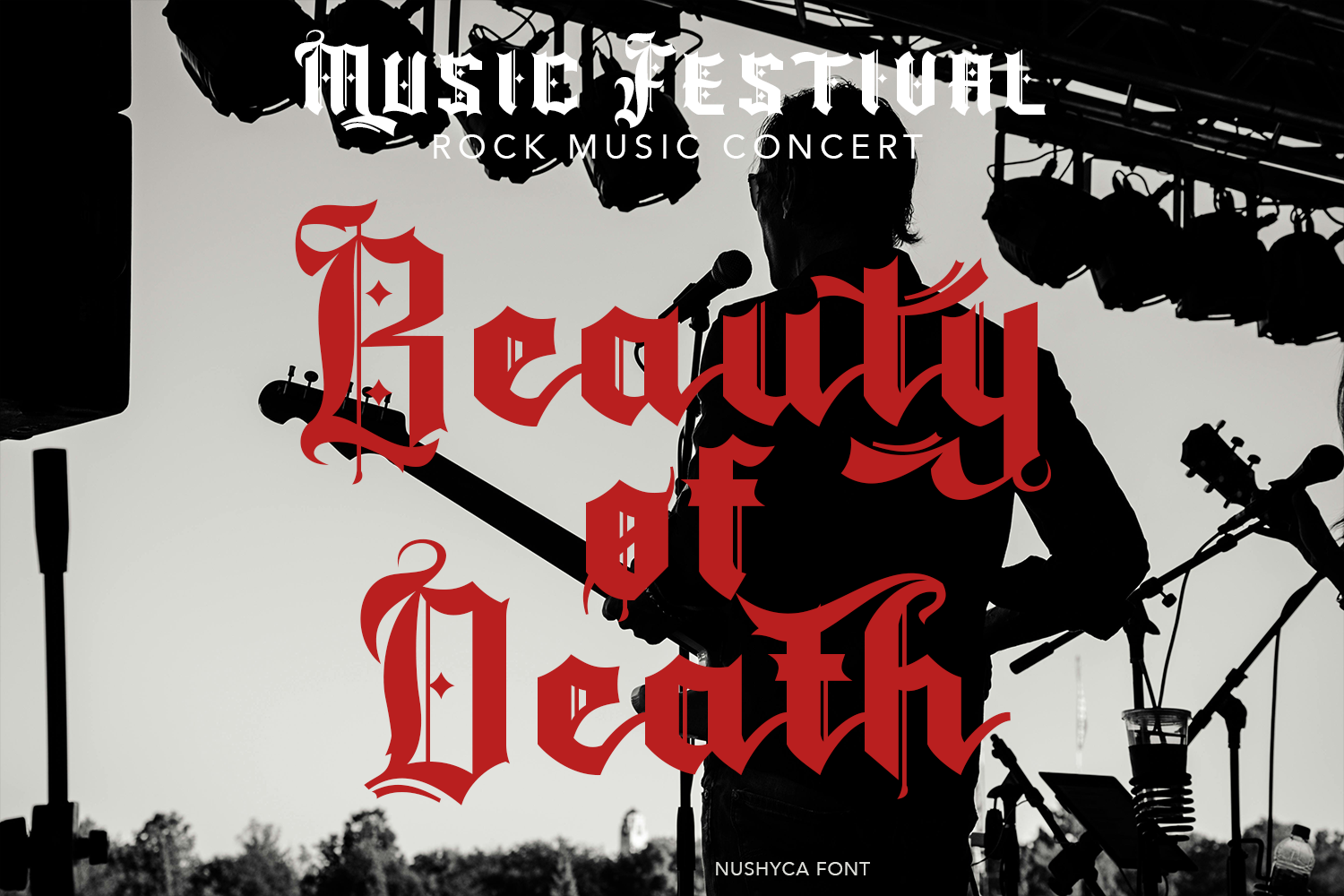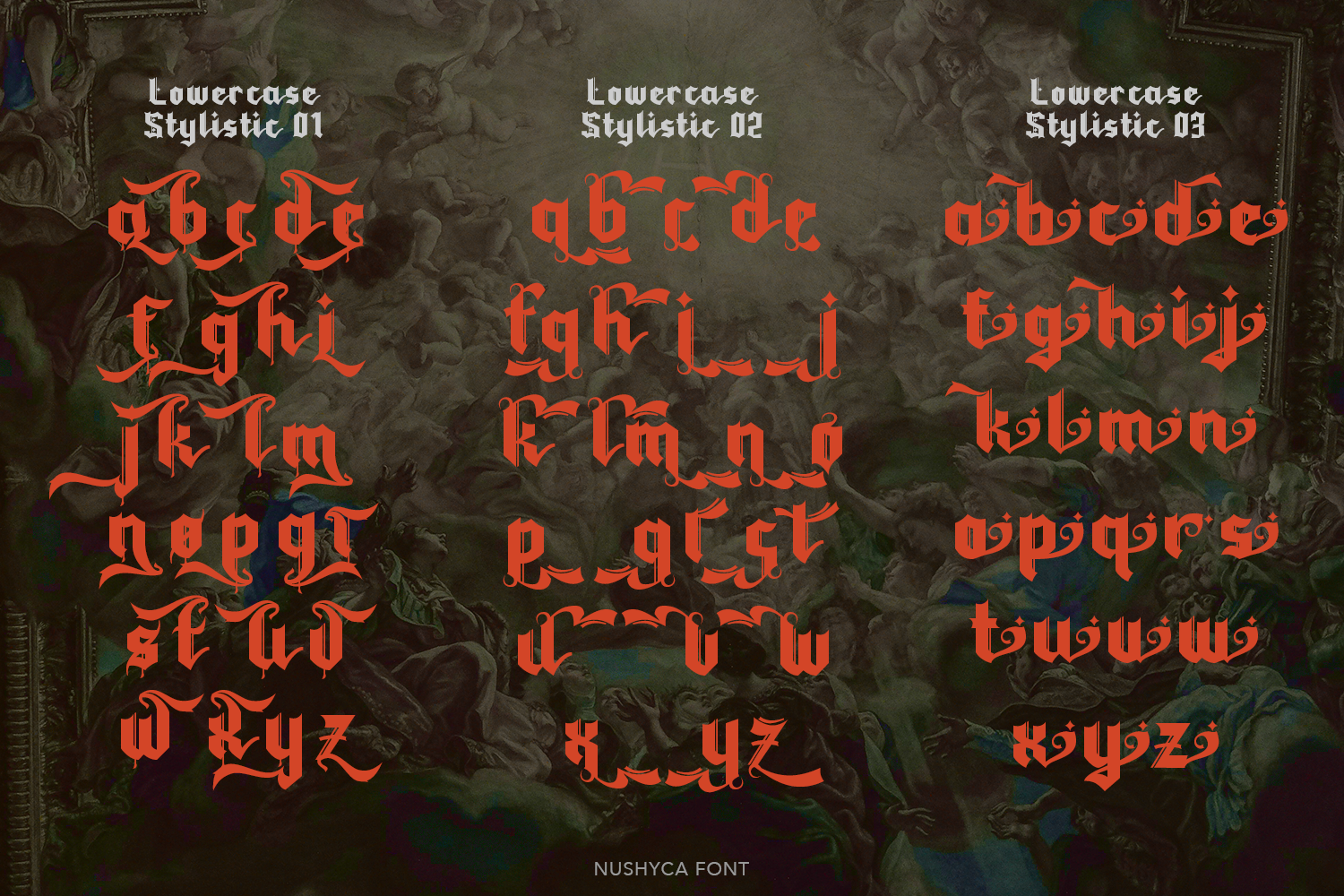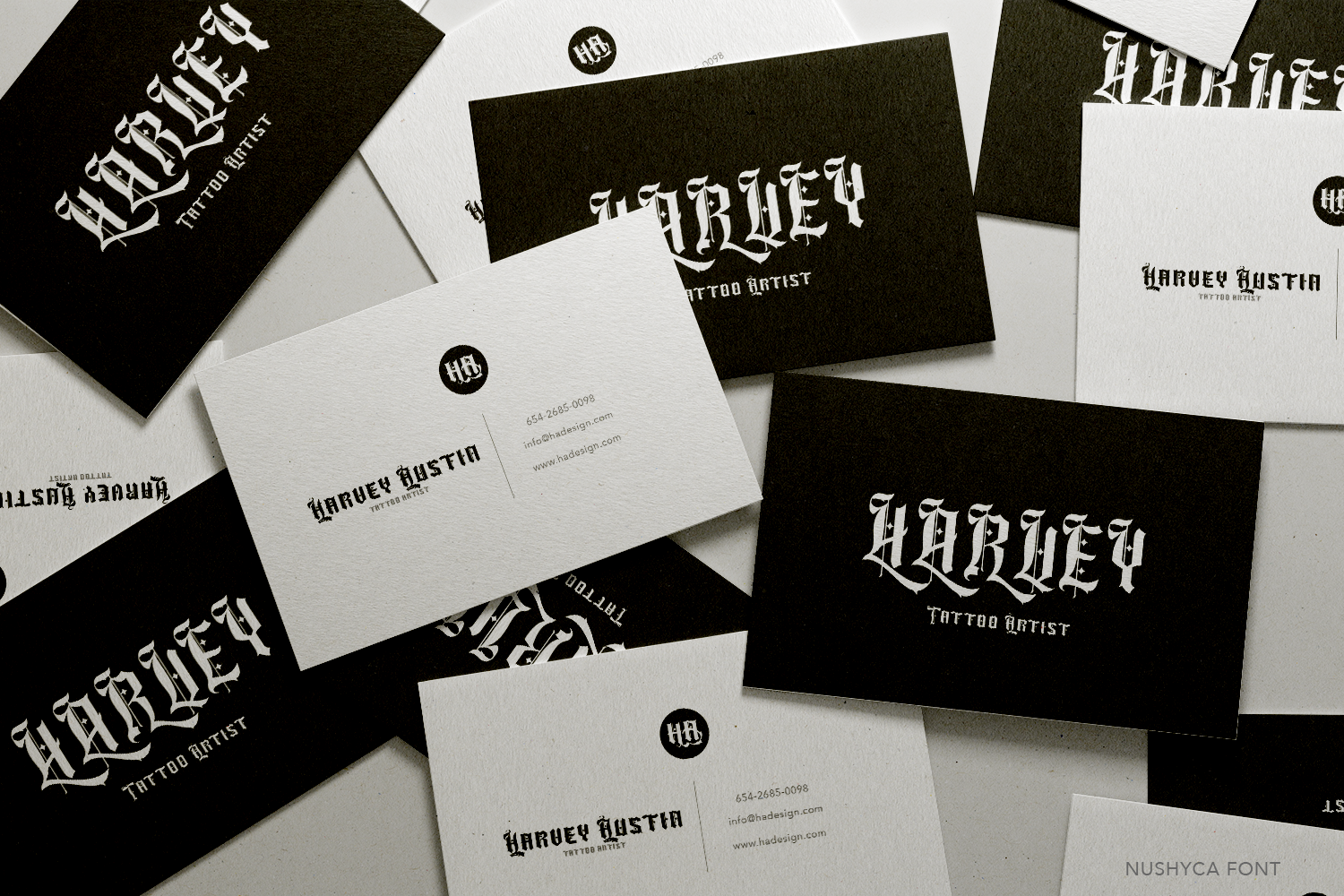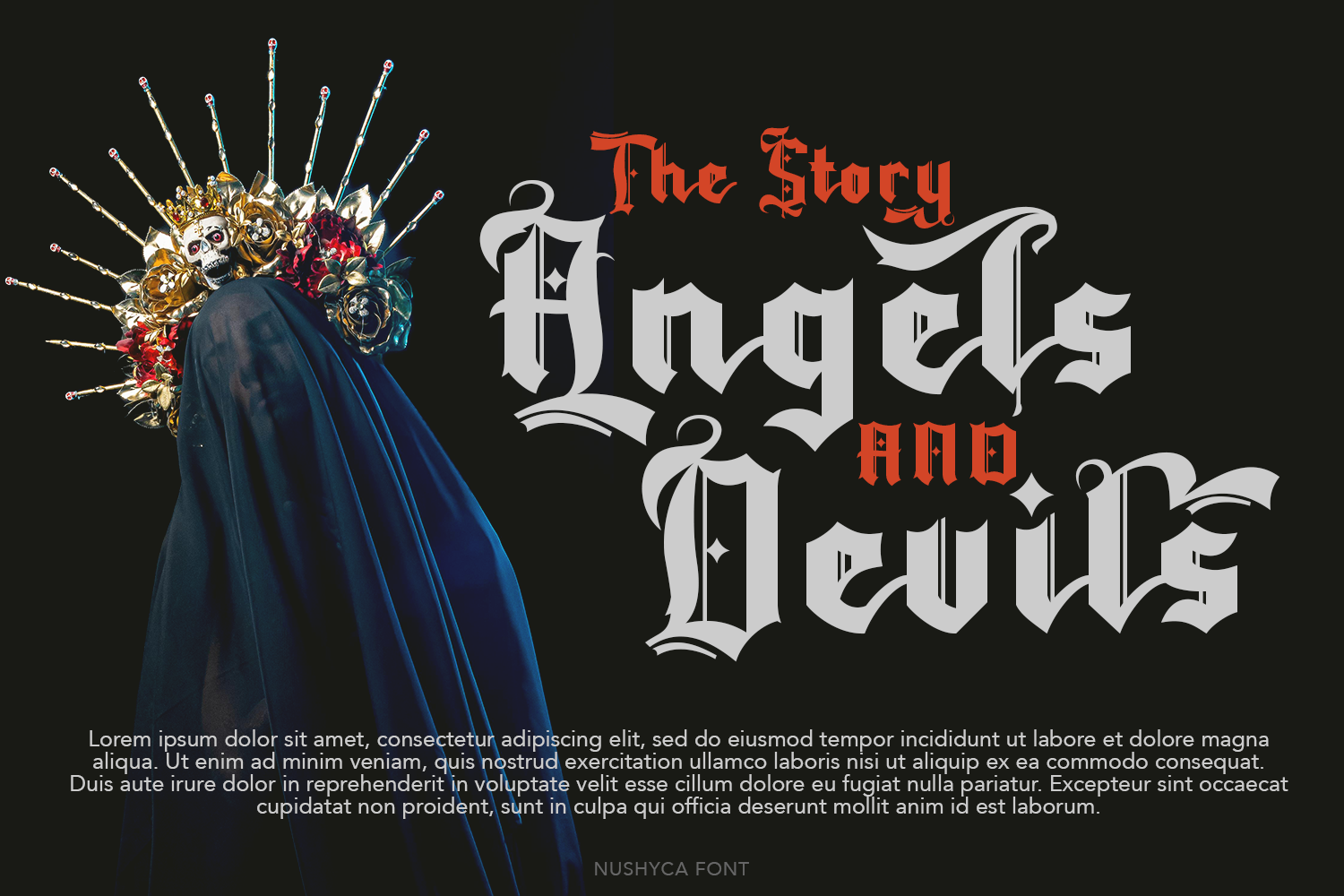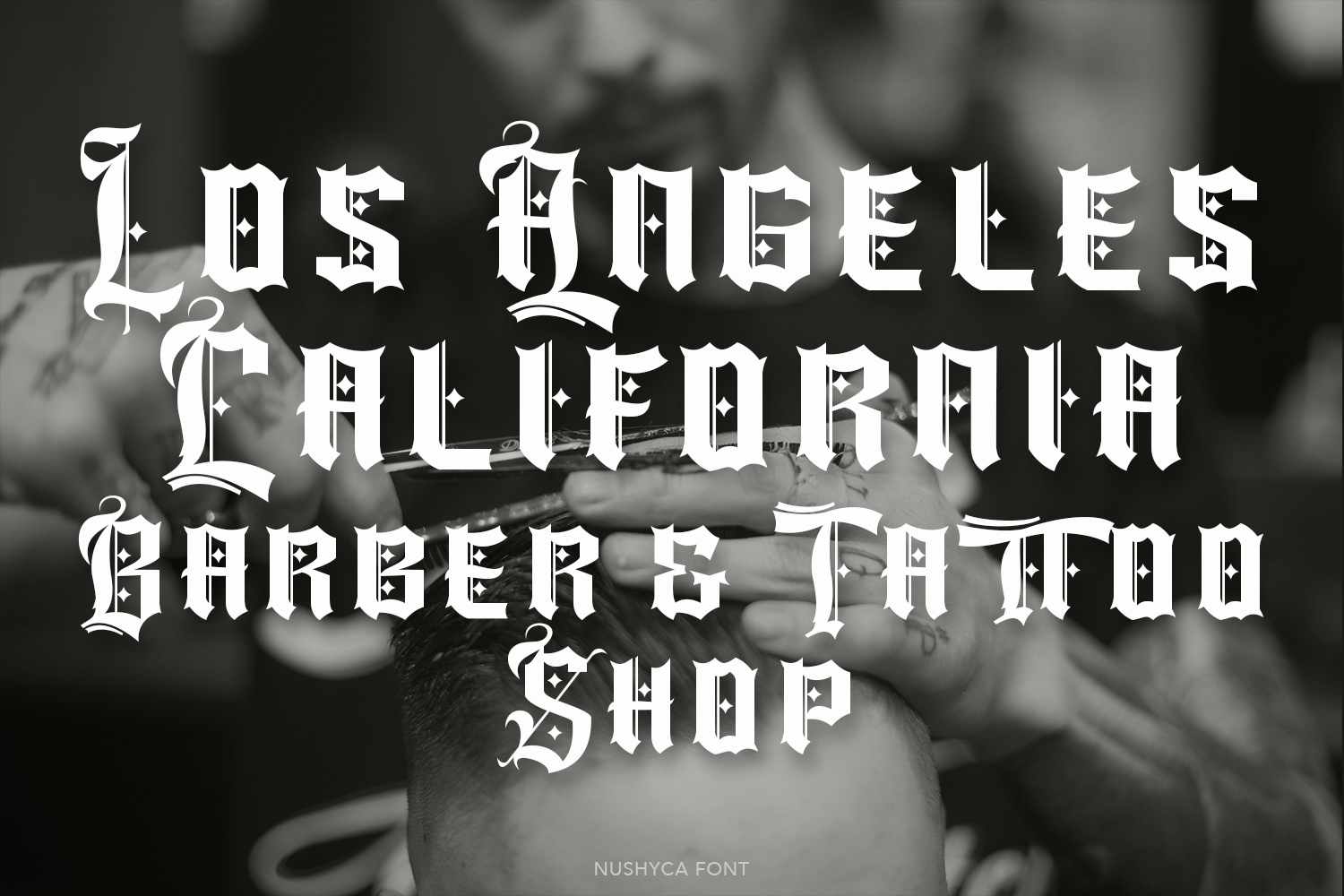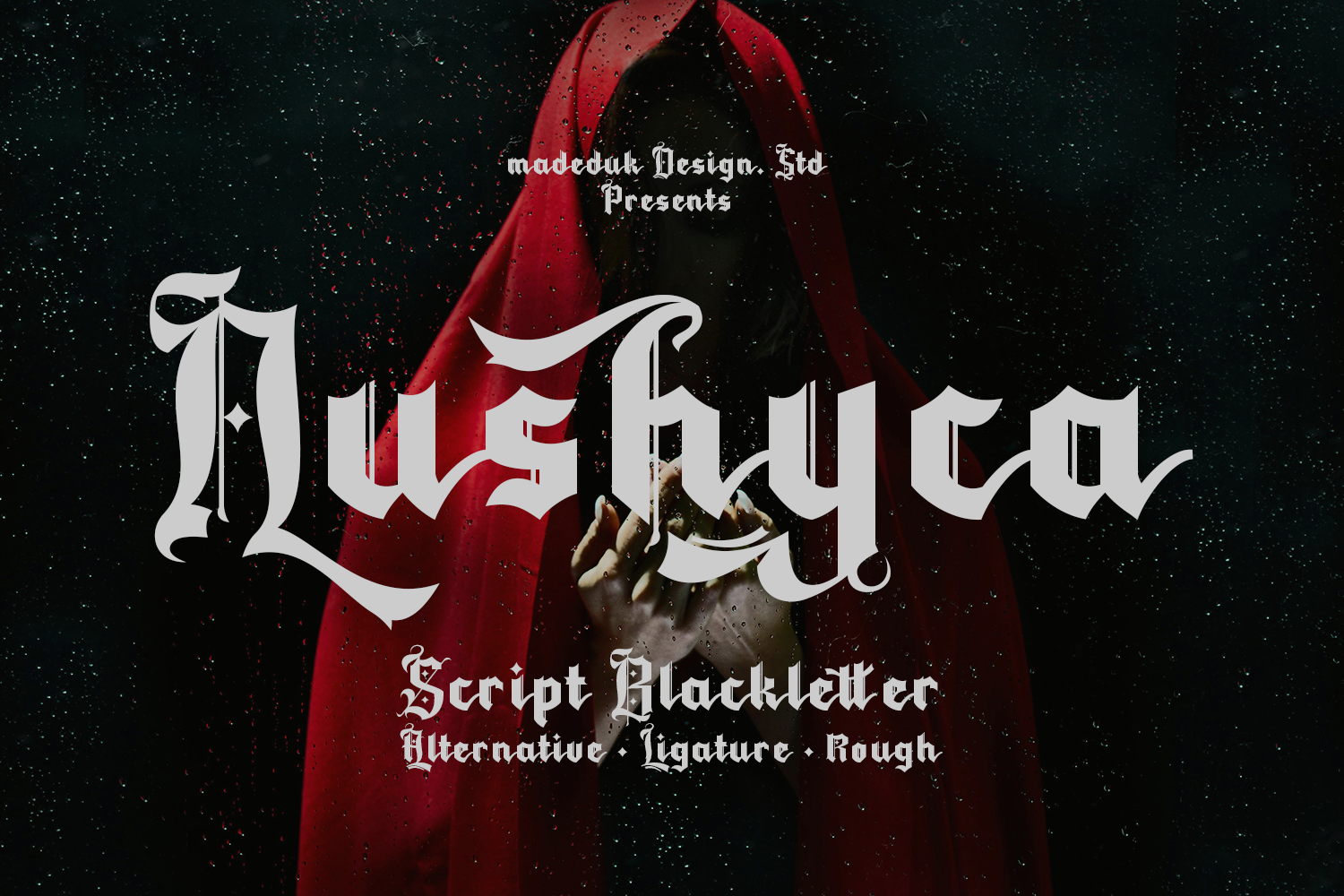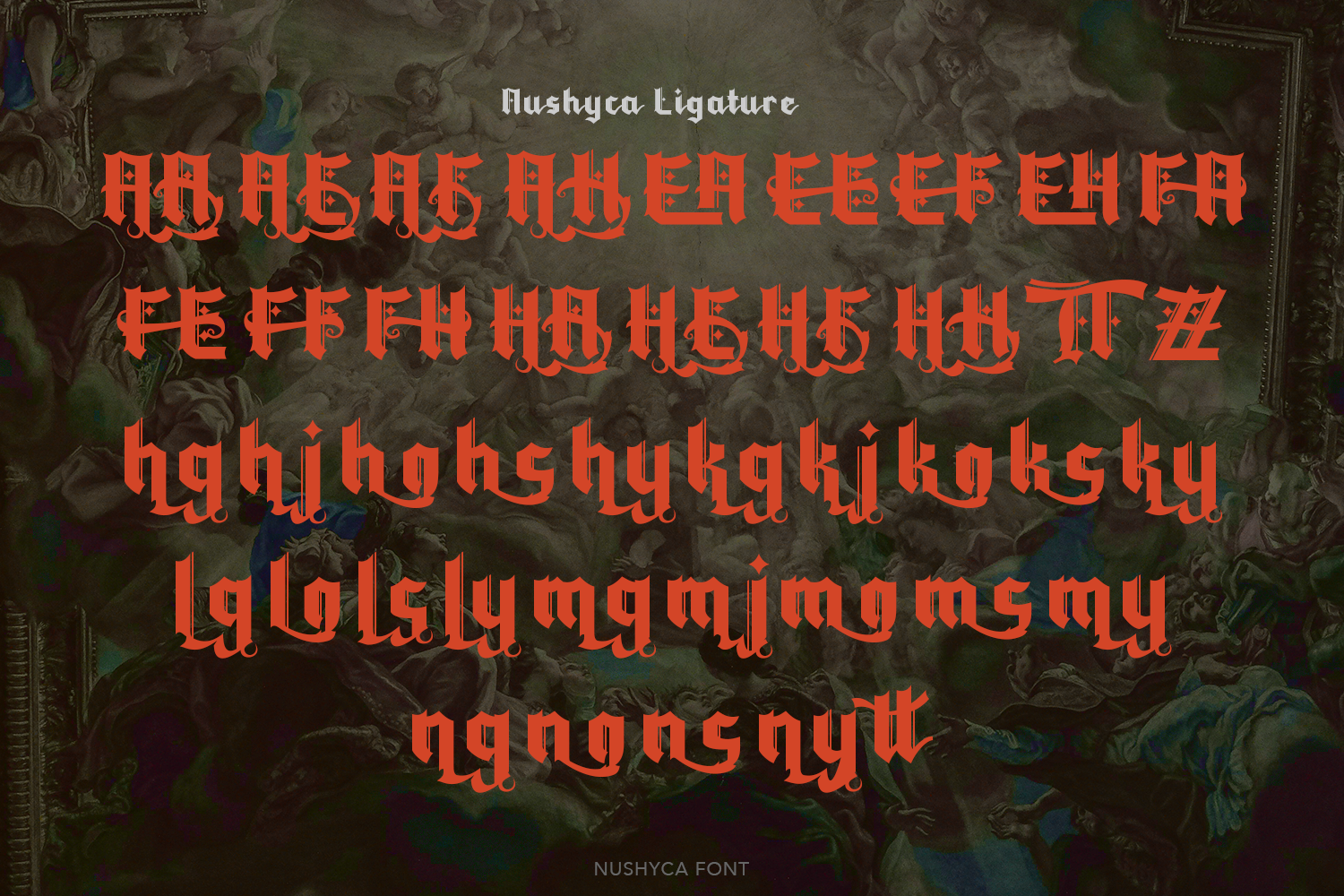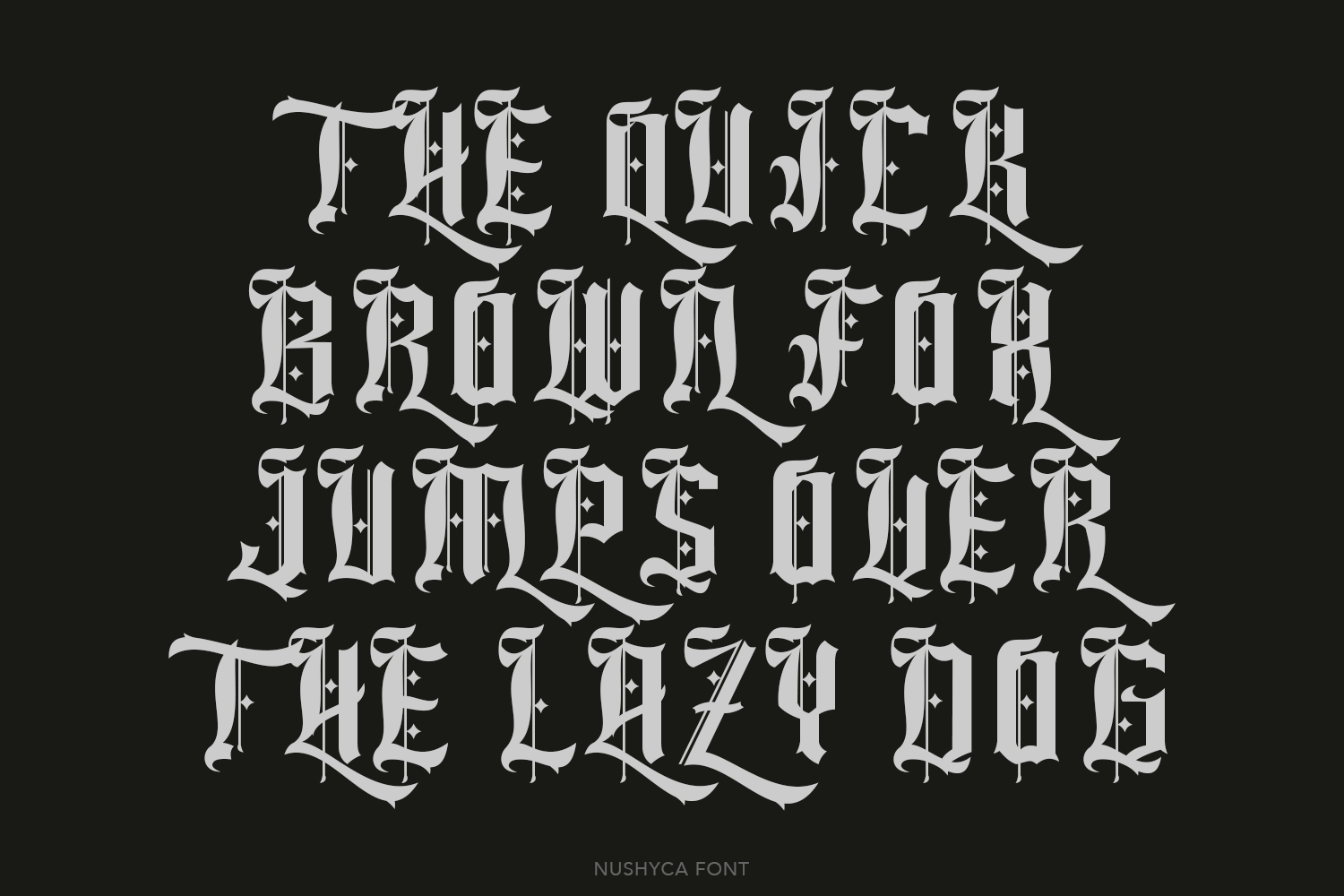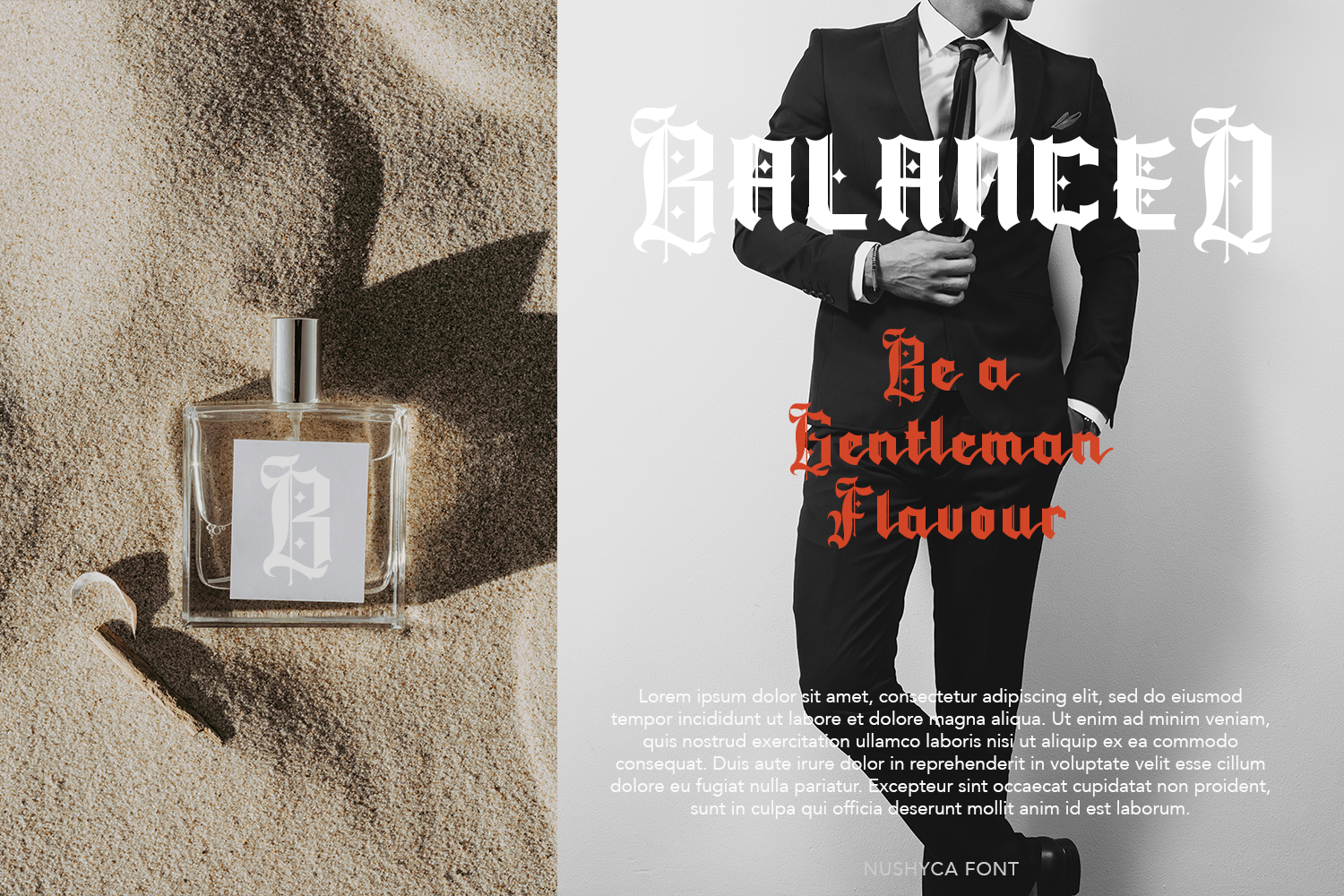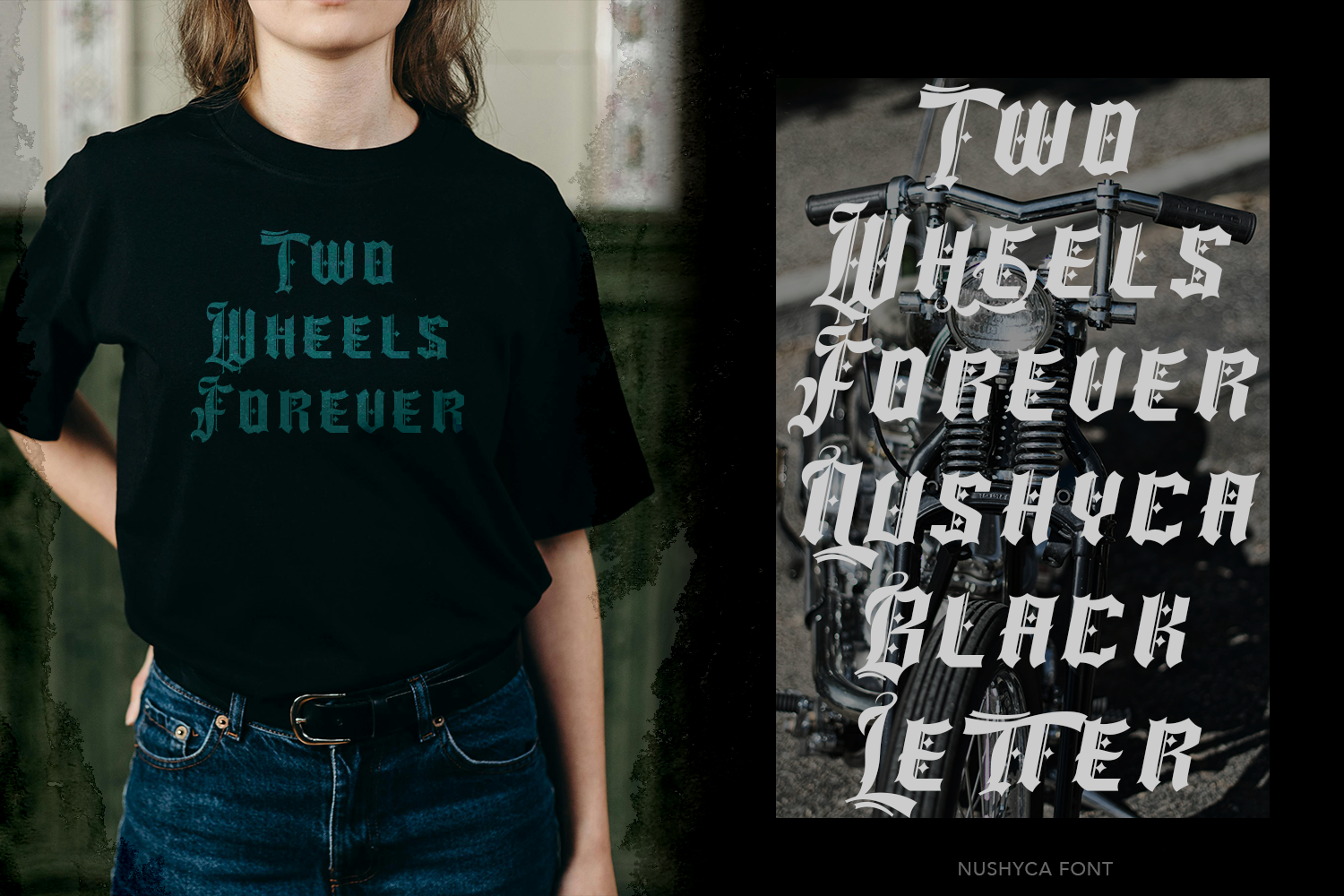
Nushyca Blackletter Font
Nushyca is a new Blackletter script with classy, elegant and vintage feel. To create the beautiful combination, just mix the alternative and ligature glyphs. You can also combine this font with other types of fonts according to your needs. This font is perfect for branding, logo design, cover design, books, magazines, apparel designs, headlines, etc.
- Number & Symbol
- International Glyphs
- Alternative
- Ligatures